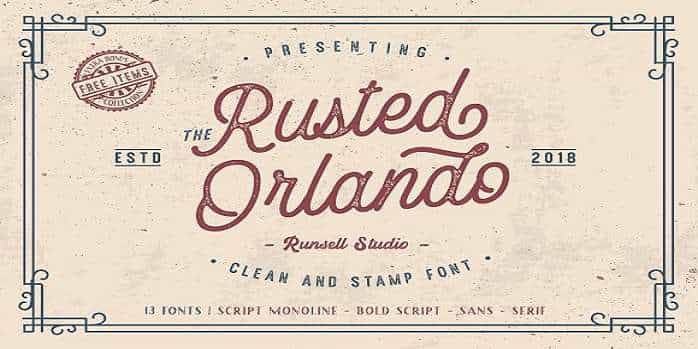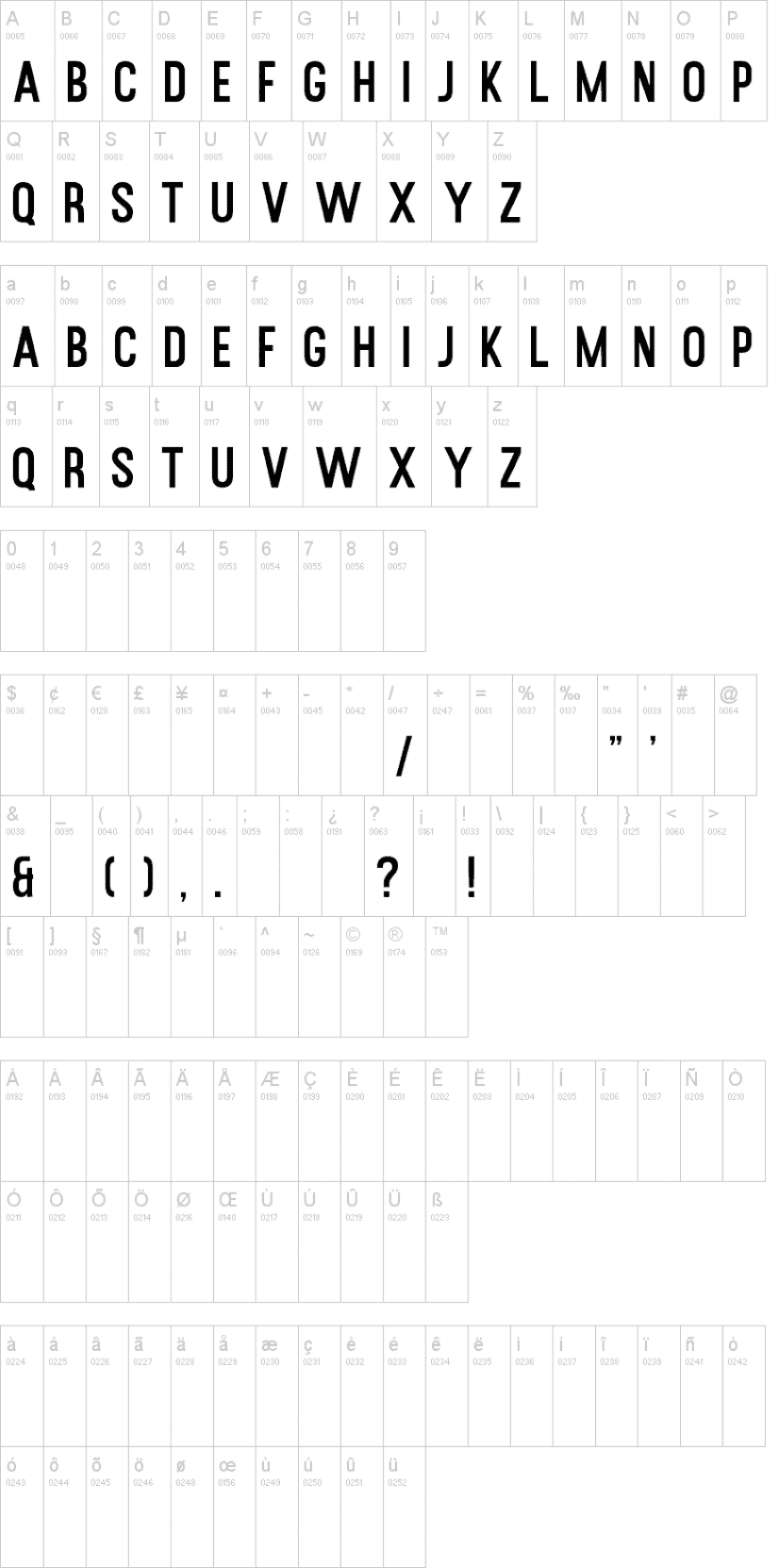
Runsell Studio introducing a new product that is unlike anything they have made before, Rusted Orlando. We make a new vintage fonts included 13 fonts : , monoline script, bold script, sans, serif. Each font there are 2 style : clean and stamp that can help you to enrich your vintage look.